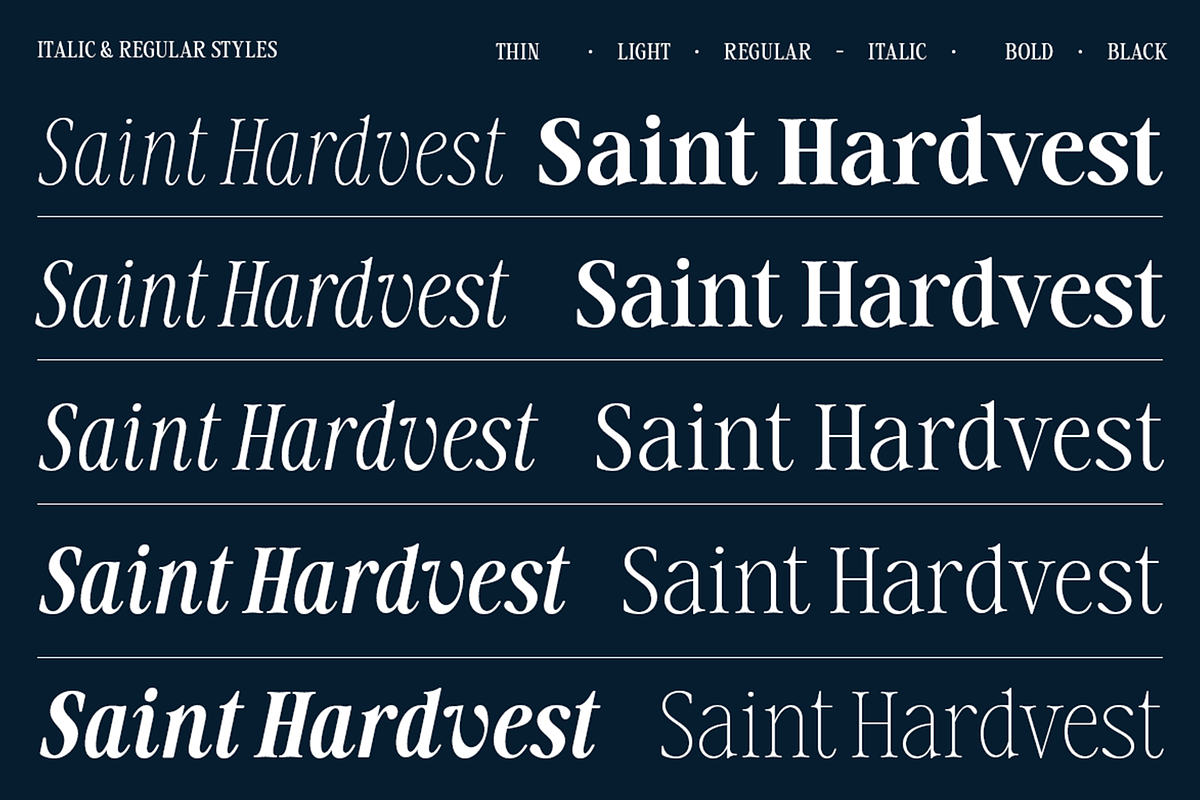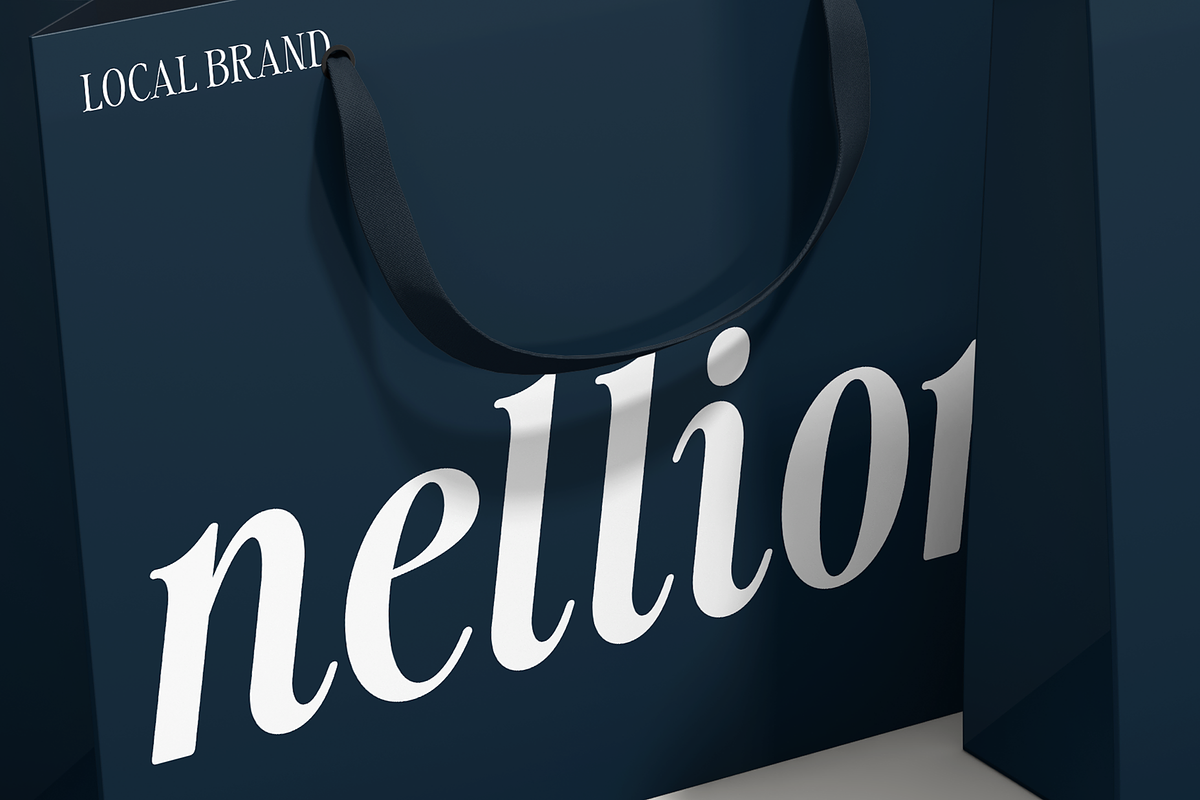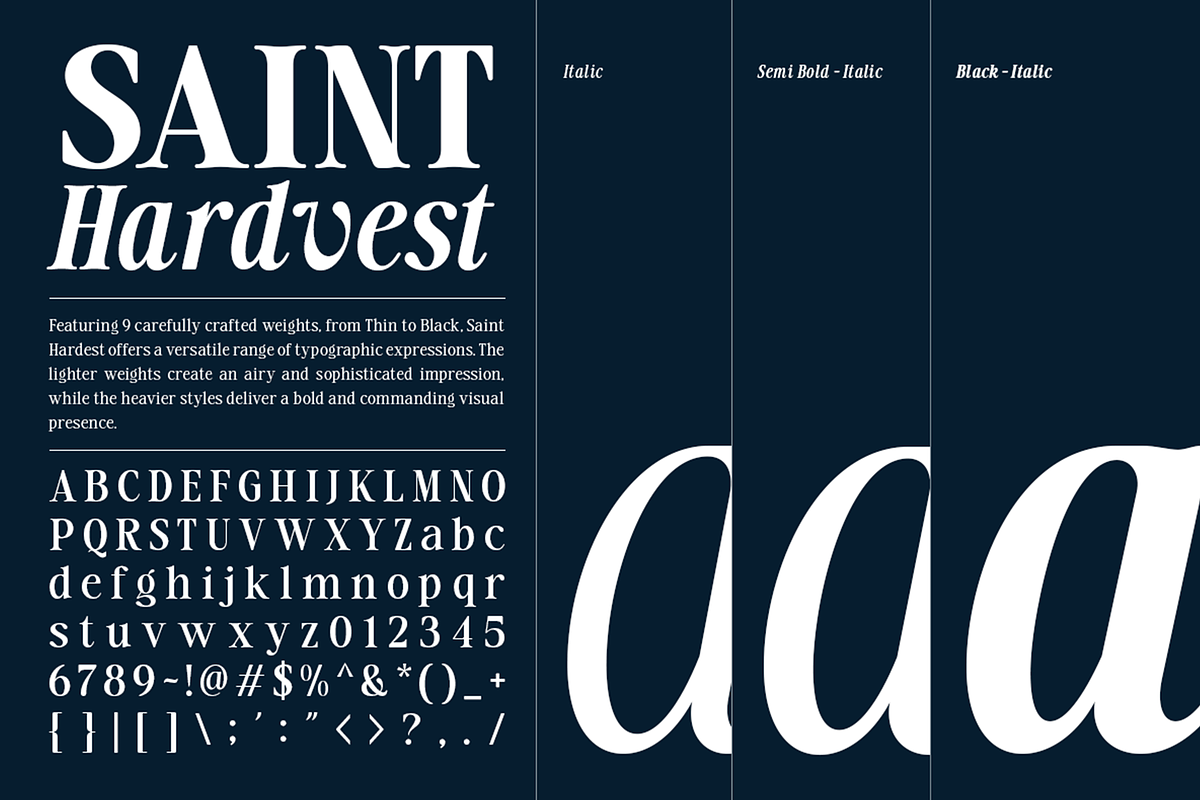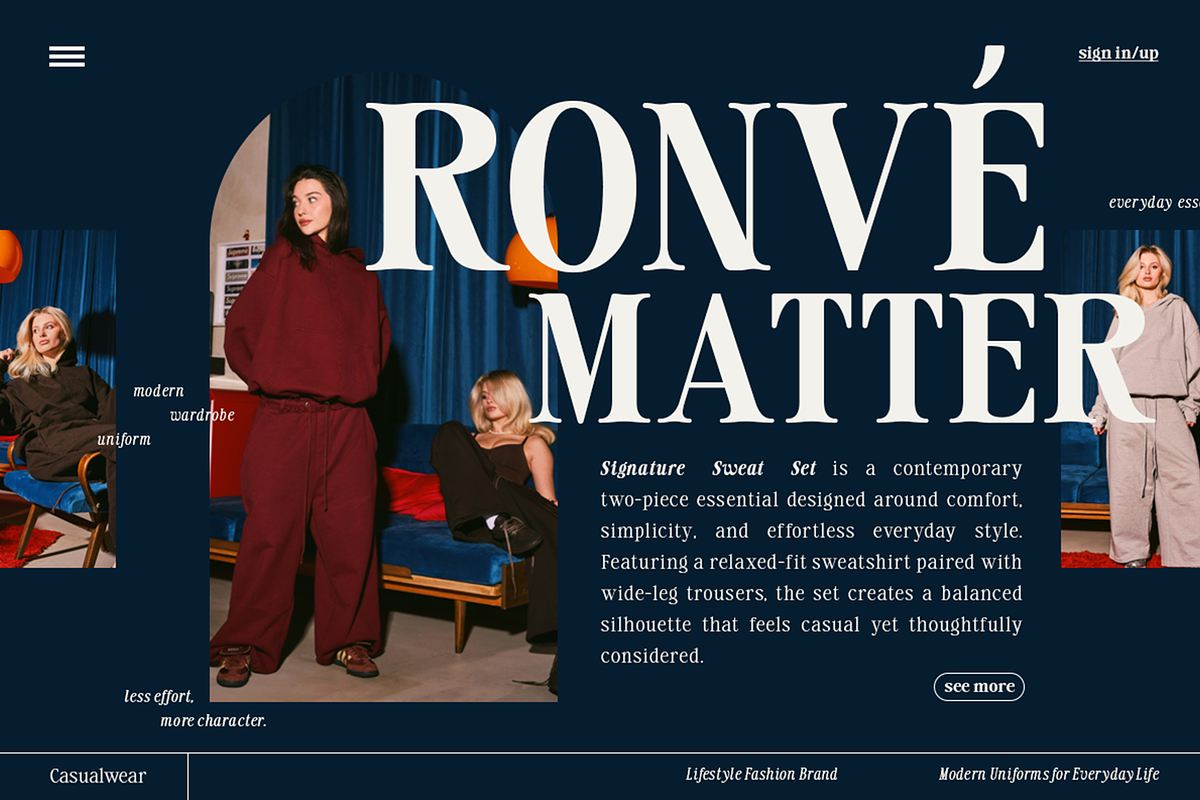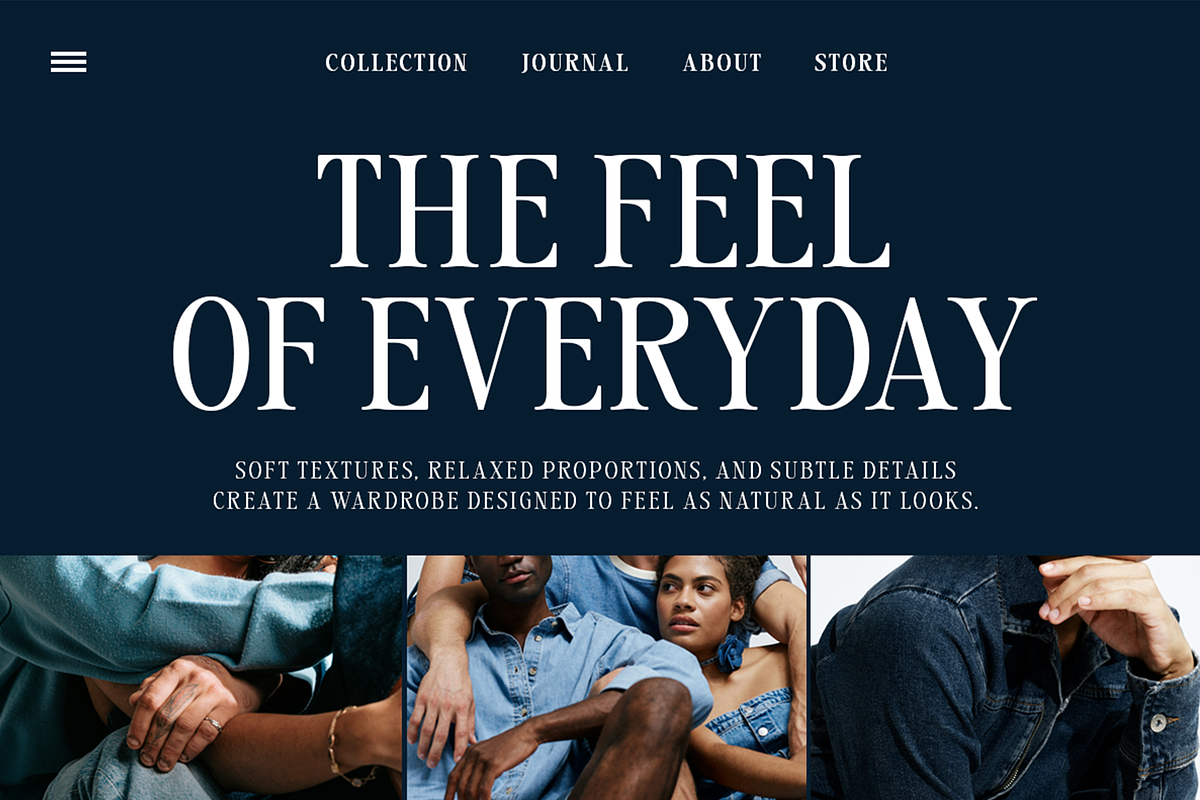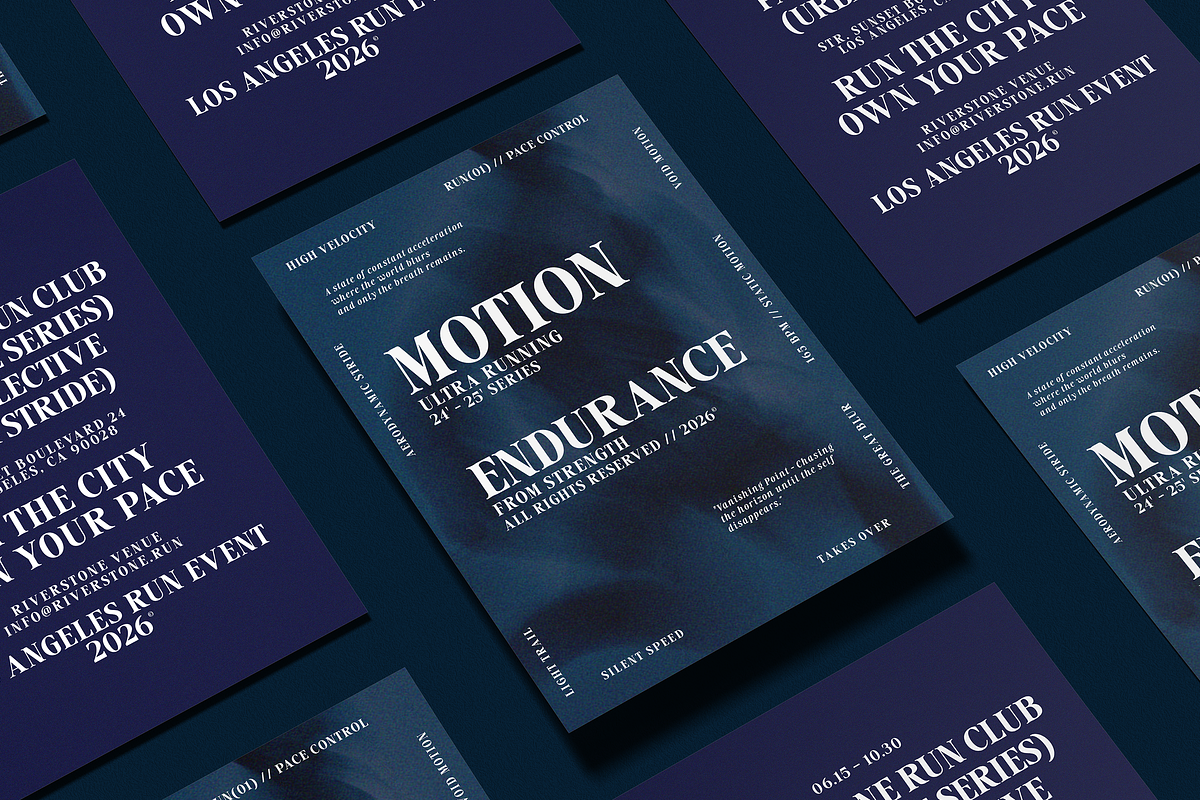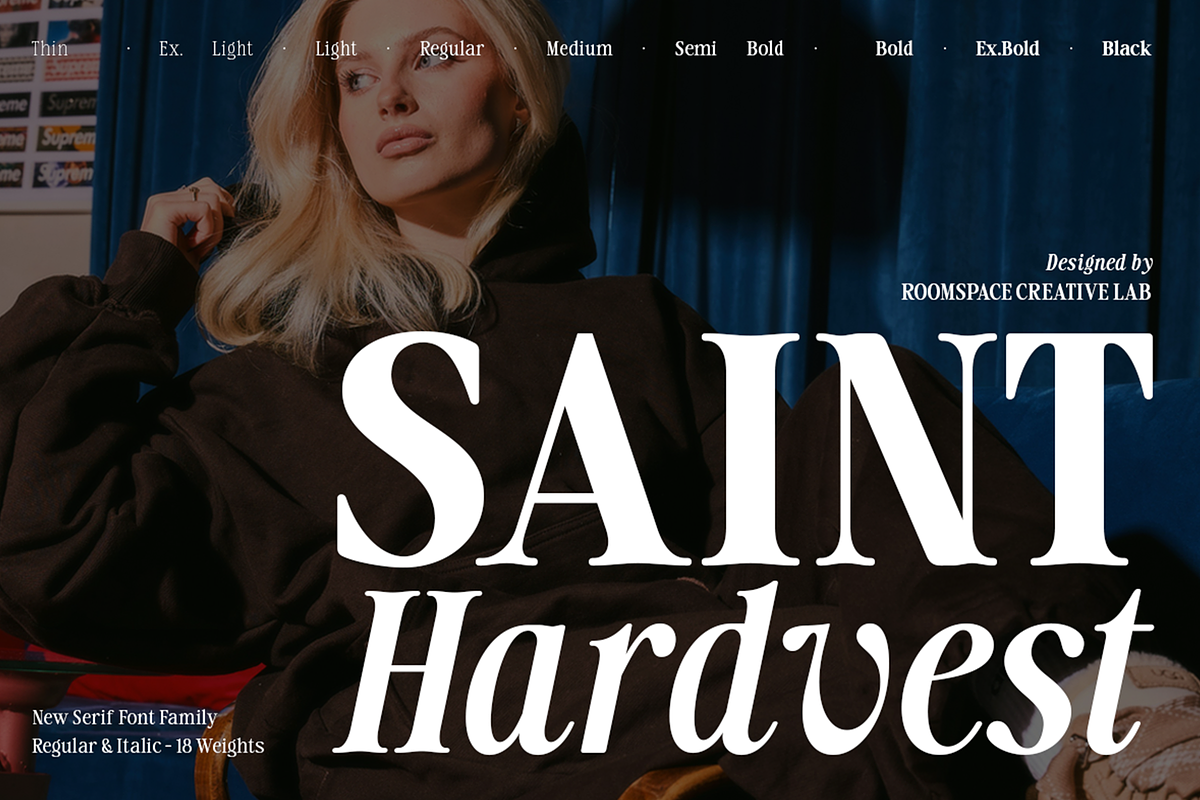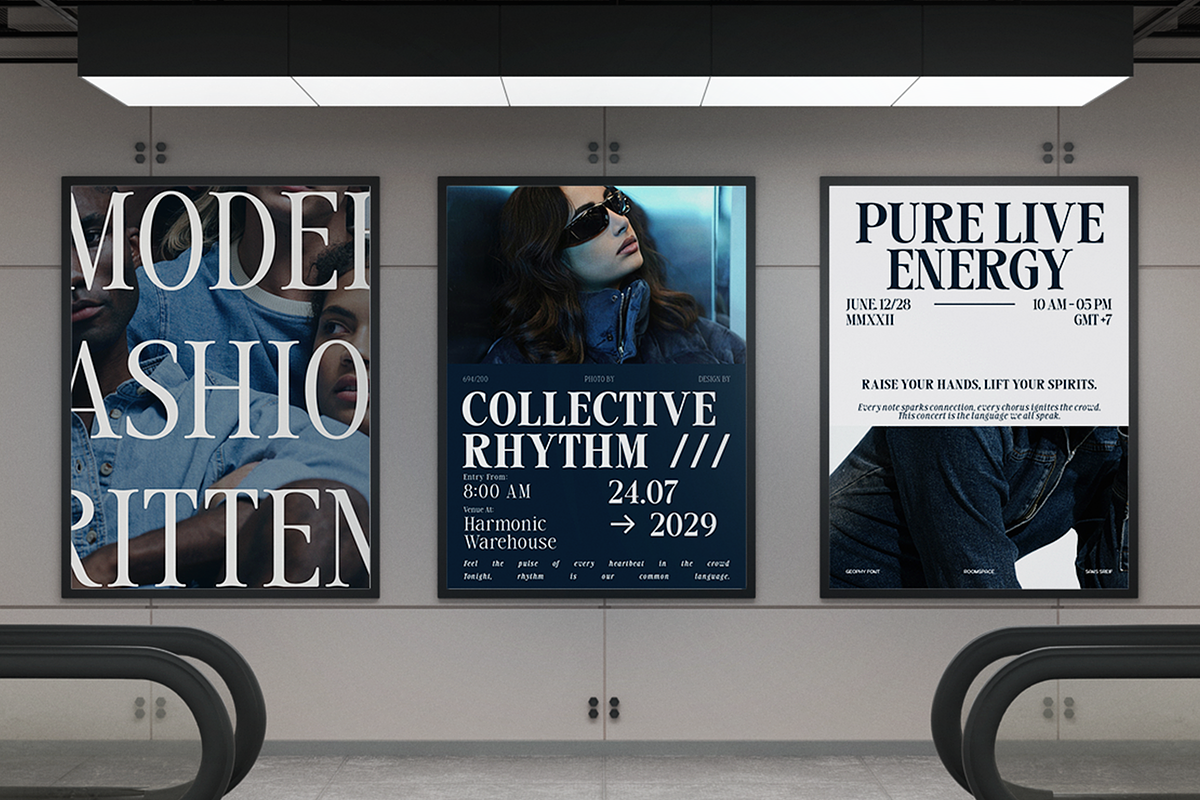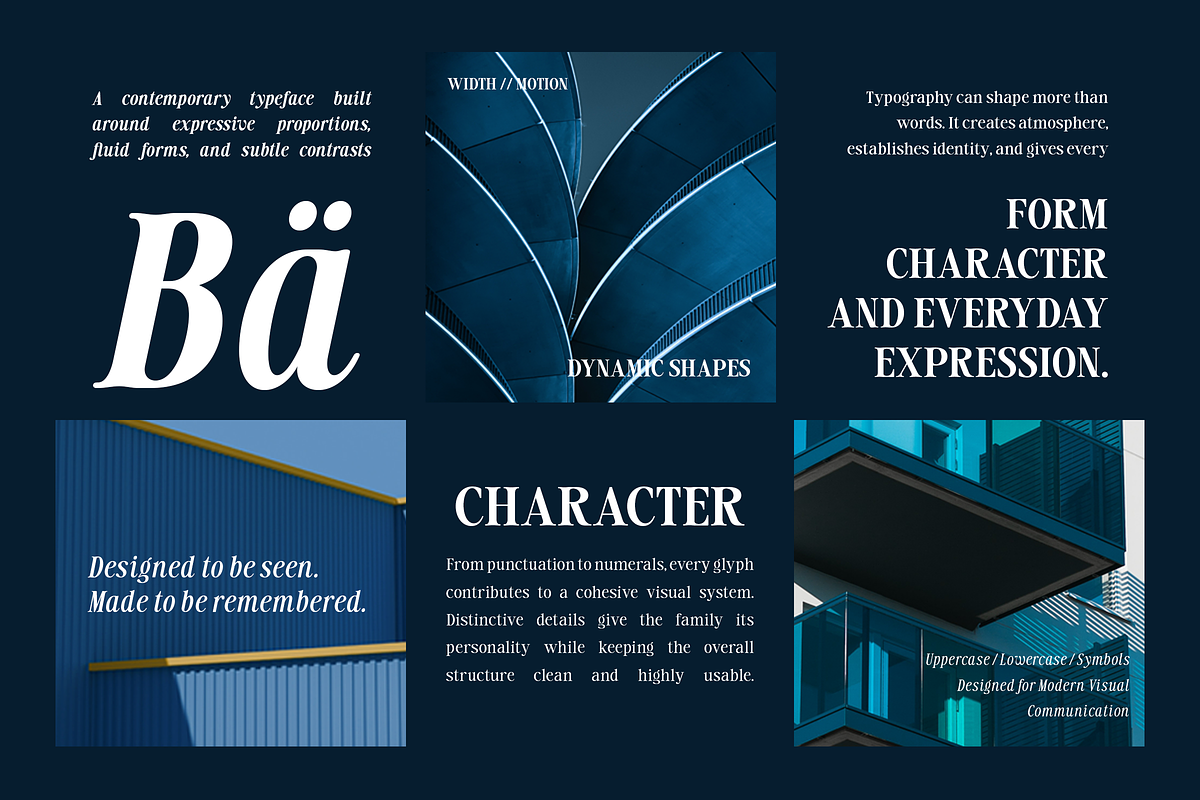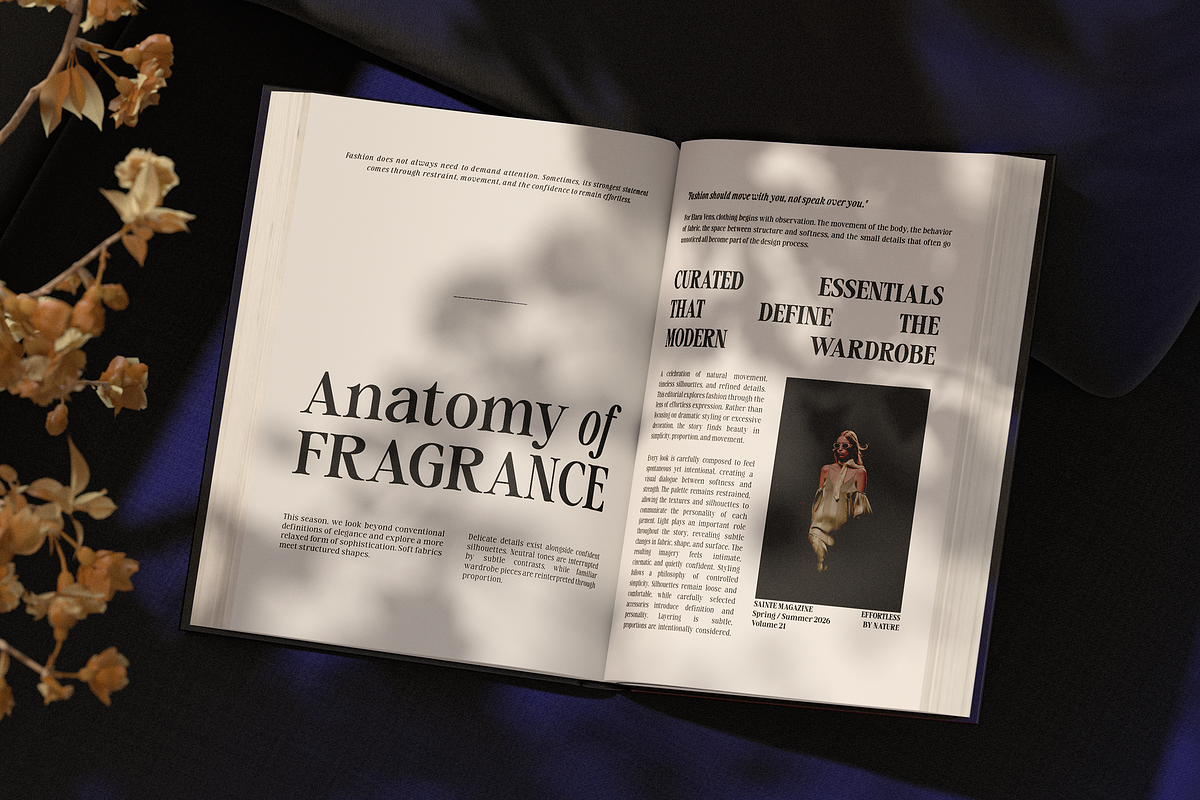
Saint Hardvest – High Contrast Serif
Saint Hardvest is a high-contrast editorial serif font family designed for fashion, branding, magazines, beauty, and modern visual communication. Its refined proportions, dramatic thick-and-thin contrast, elegant curves, and expressive italic forms create a distinctive typographic presence for contemporary design.
The family includes 18 styles across 9 weights, from Thin to Black, with both Regular and Italic styles. The wide weight range allows you to create everything from delicate editorial layouts to bold headlines and expressive display compositions.
Saint Hardvest is suitable for fashion branding, editorial design, magazine covers, beauty campaigns, posters, packaging, logos, headlines, lookbooks, invitations, websites, social media graphics, and creative direction projects.
The lighter weights work well for elegant headlines, captions, and refined layouts, while the heavier weights provide stronger impact for large titles, posters, covers, and brand statements. The Italic styles add additional movement and character for editorial accents, quotes, and expressive typography.
The font includes uppercase, lowercase, numerals, punctuation, and symbols, providing a versatile character set for a wide range of creative applications.